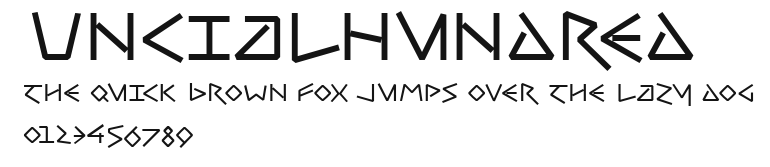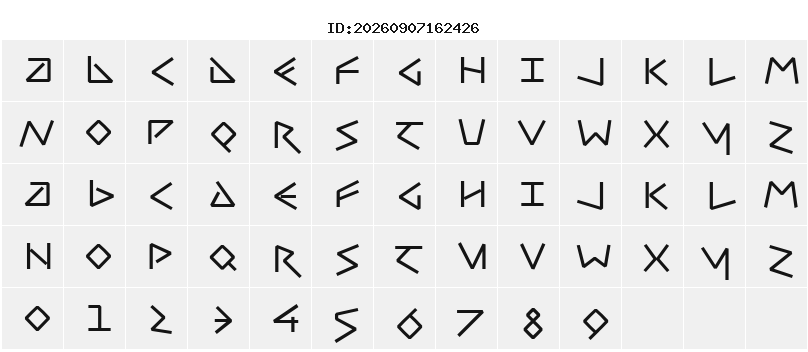
• Font Name: UncialHundred
• Full Font Name: UncialHundred
About UncialHundred.ttf
UncialHundred.ttf is a modern, elegant sans-serif font designed for ultimate readability and visual harmony. Perfect for branding, headlines, web design, and print materials.